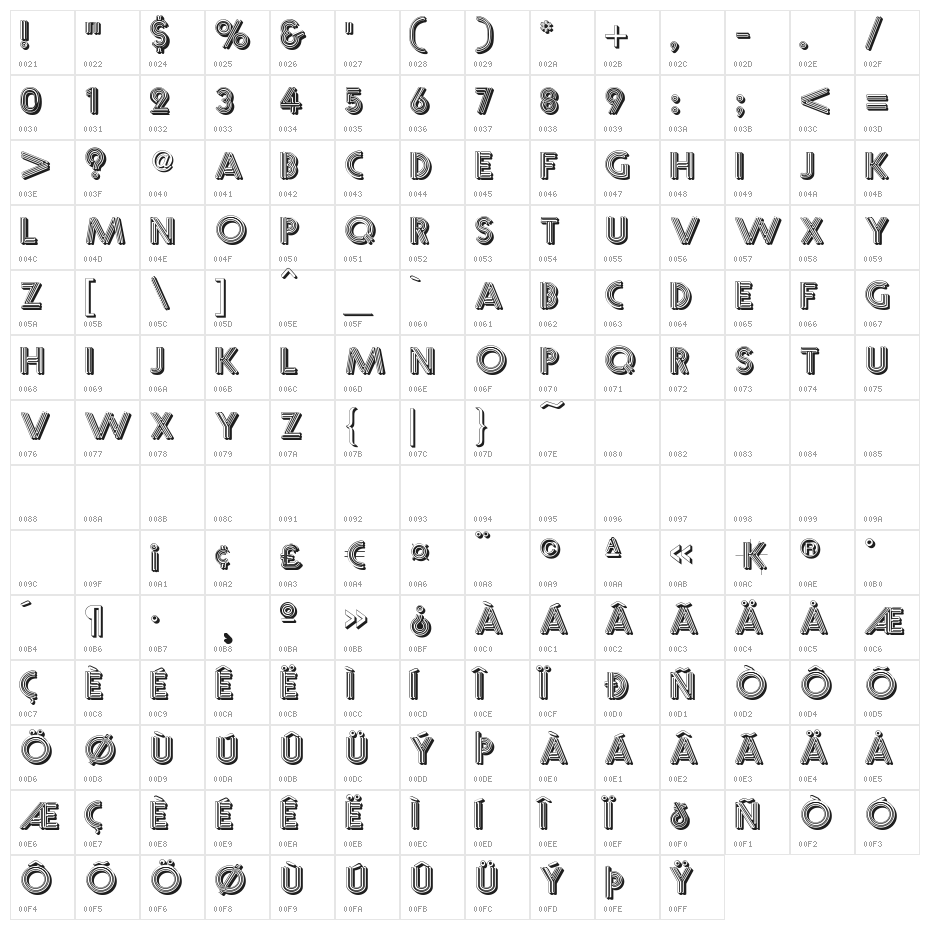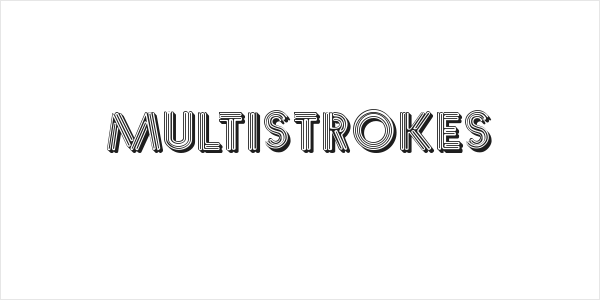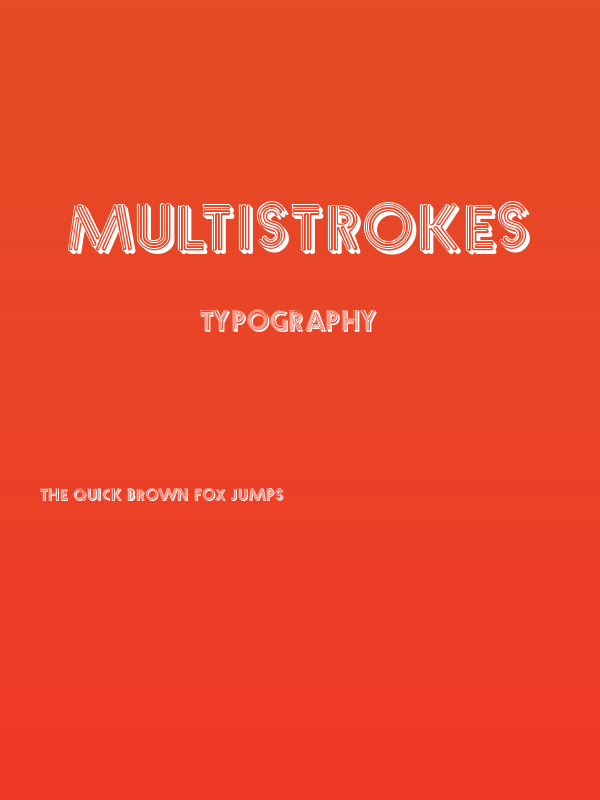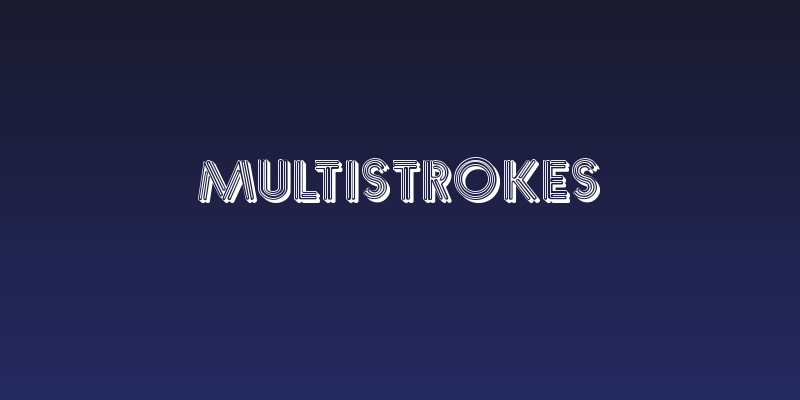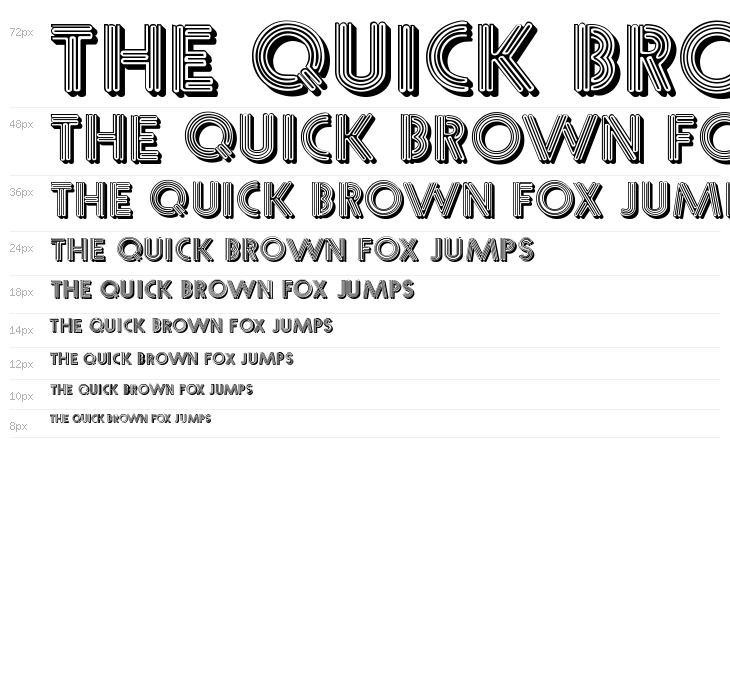
Multistrokes Font
Multistrokes Description
This font features a bold and striking design with multiple strokes creating a layered effect for each character. The letters are uppercase and lowercase, with numbers and special characters included. The style is highly decorative, making it stand out with its intricate line work. Each character is composed of several parallel lines that give a sense of depth and dimension. The font's unique appearance is ideal for projects that require a strong visual impact.
| Proposed Projects | Ideal for posters, logos, headlines, and any design requiring a bold statement. |